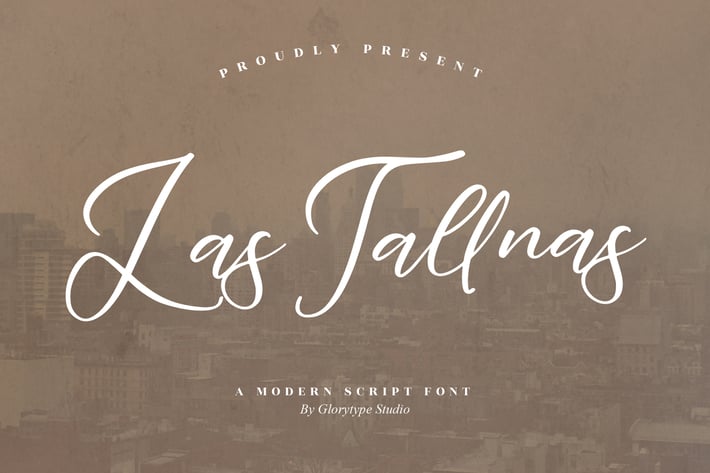
Las Tallnas Modern Script Font
Las Tallnas is a modern script font with smooth curves, confident strokes, and a clean handwritten flow. It blends elegance with a casual contemporary vibe, making it perfect for lifestyle branding, café visuals, and stylish social media layouts that need a warm, welcoming touch.
Modern handwritten script with fluid, balanced strokes
Clean and stylish letterforms ideal for branding and titles
Natural handwritten feel with a polished aesthetic
Great for both print materials and digital creative work
Café & restaurant branding
Lifestyle, travel, and boutique identities
Social media posts & inspirational quotes
Wedding stationery & elegant invitations
Packaging, labels, and product branding
Posters, editorial graphics, and promotional visuals
Modern handwritten charm for warm, stylish branding.